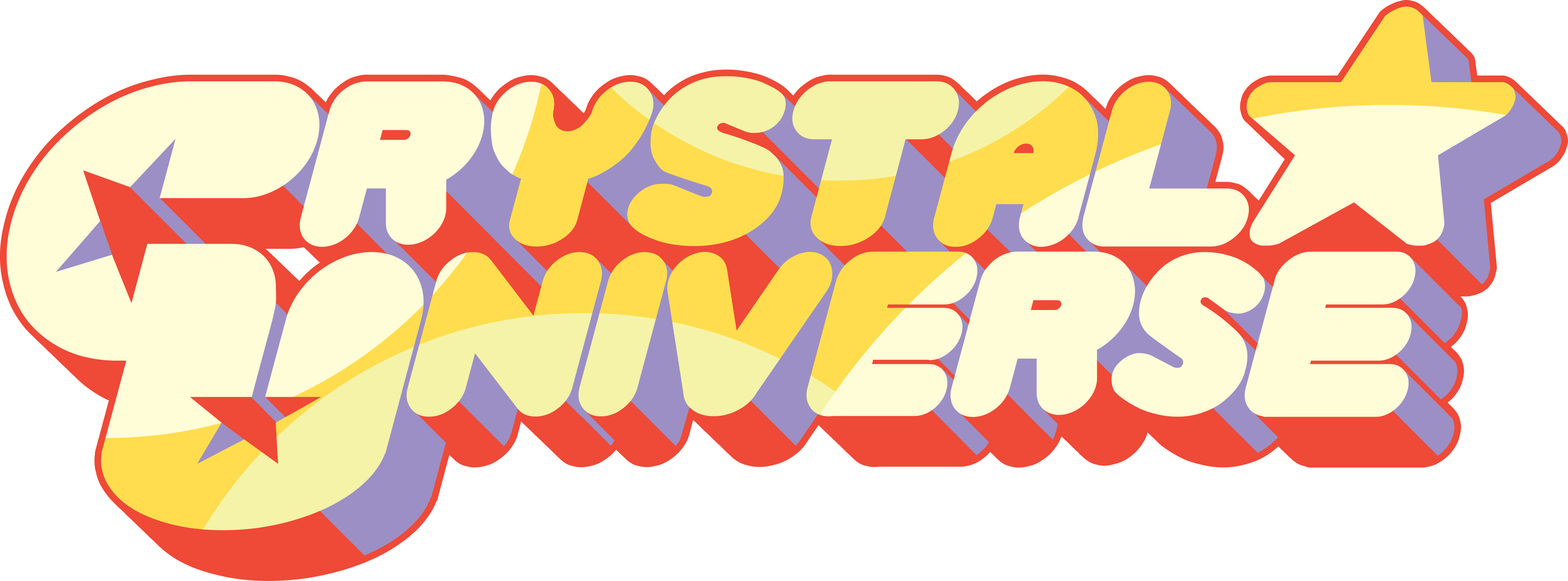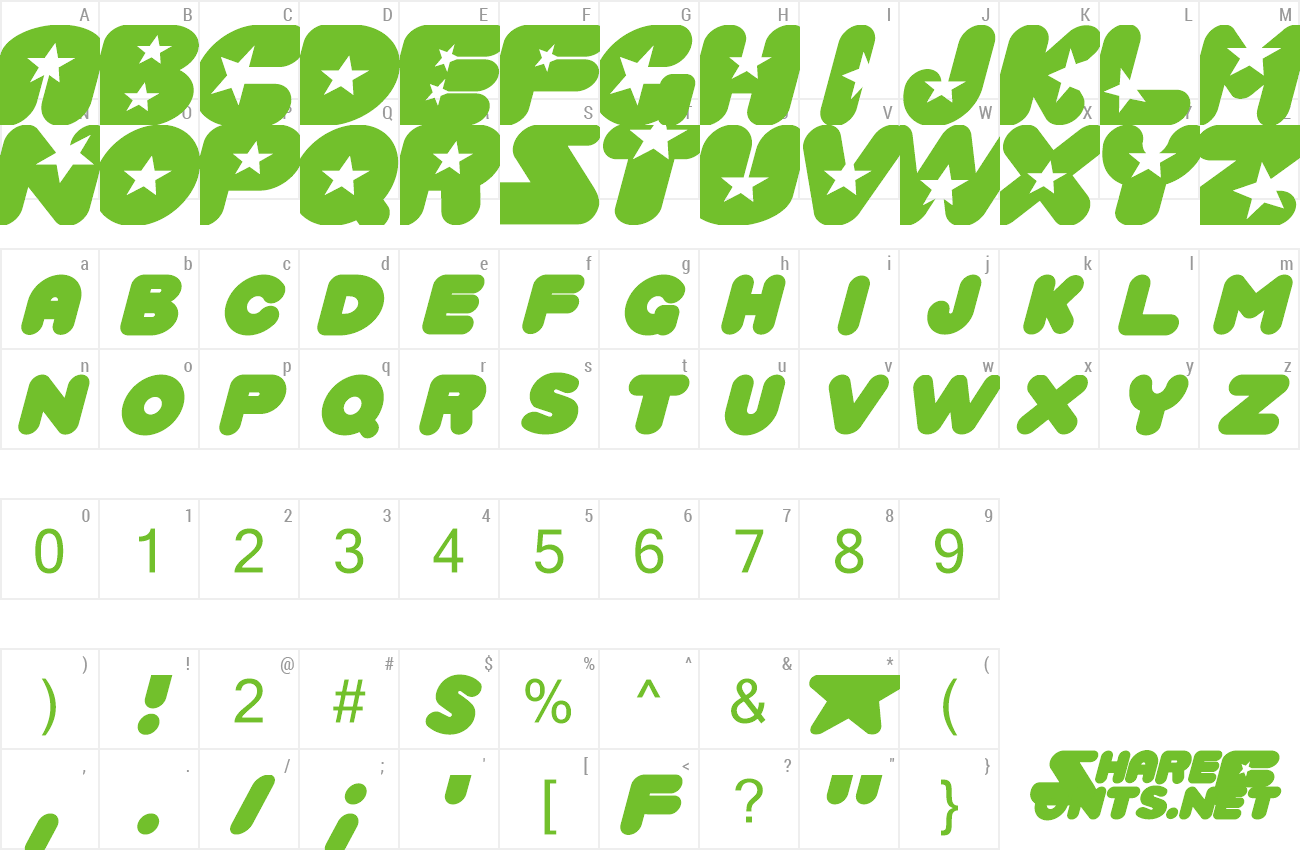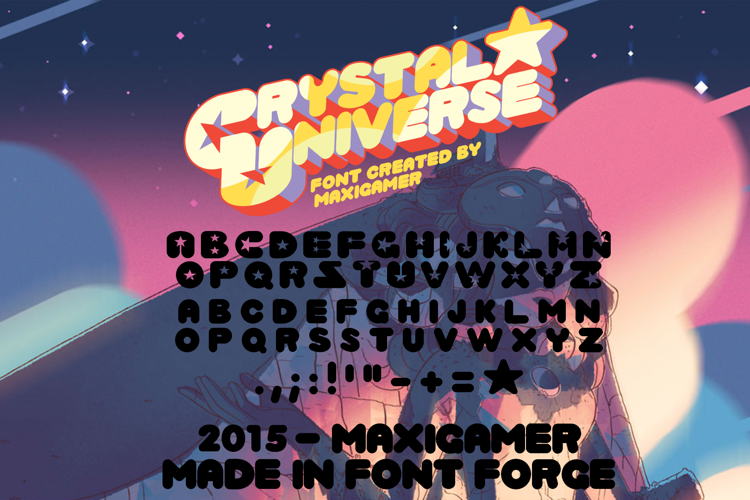
Crystal Universe Font - Download crystal universe font for free and create cartoonish text layouts inspired by the show steven universe. Download and install the crystal universe regular font for free from ffonts.net. ️ this font has been downloaded 10,000+ times.
Crystal Universe